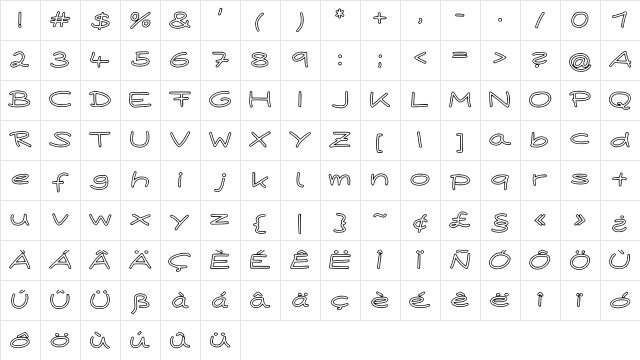
Paper Plane Hollow Medium Free Font
Paper Plane Hollow Medium
Complete Paper Plane Hollow Medium glyph index. Displaying only characters natively supported by Paper Plane Hollow Medium font.
Design Context for Paper Plane Hollow
Paper Plane Hollow is a composed and adaptable typeface that performs quietly and consistently across a wide range of design contexts.
Pro Tip: Use Paper Plane Hollow in both headline and body roles to test its range before committing to a single application.